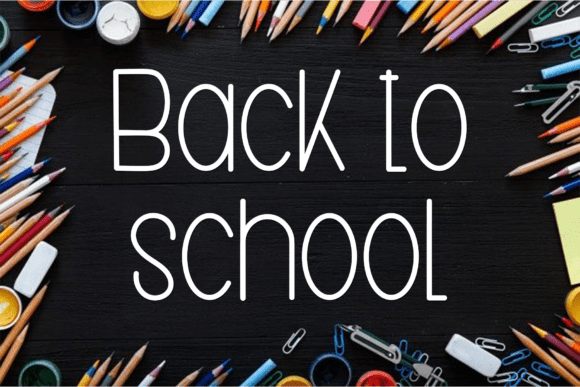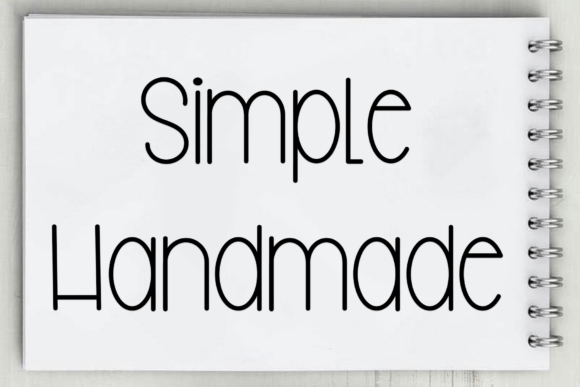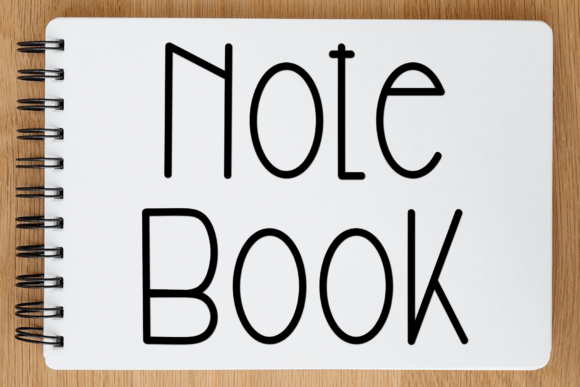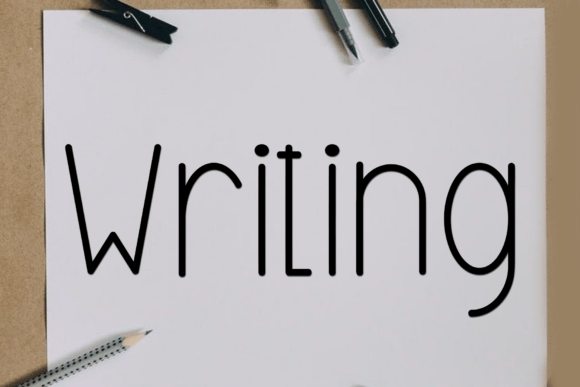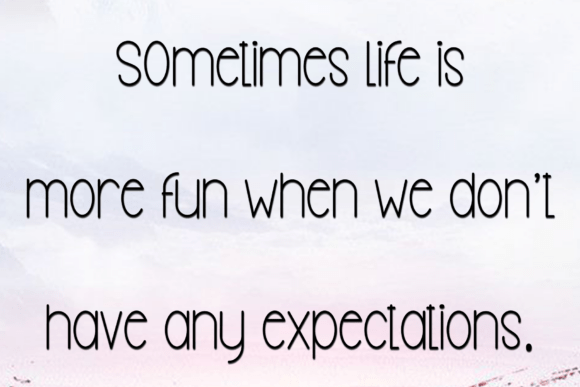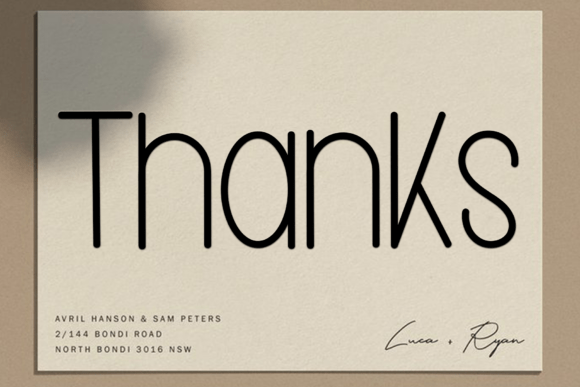
Introduction to Simple Picture Font
Simple Picture is a modern sans serif font with a rounded, minimal aesthetic designed to offer clarity, friendliness, and functionality in every stroke.
With its tall, open letterforms and consistent line weight, this typeface is ideal for creative applications that require simplicity without losing visual charm Whether youโre working on childrenโs content, minimalist branding, or soft editorial layouts, Simple Picture delivers a fresh and reliable visual voice.
Key Features of Simple Picture Font